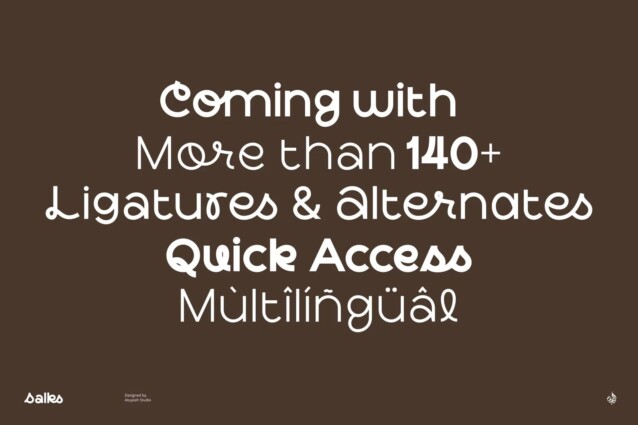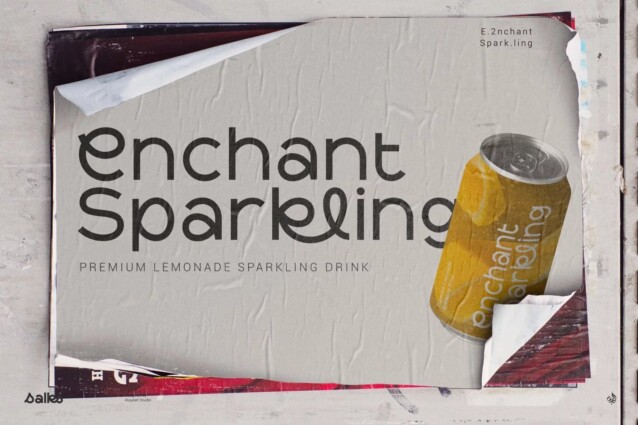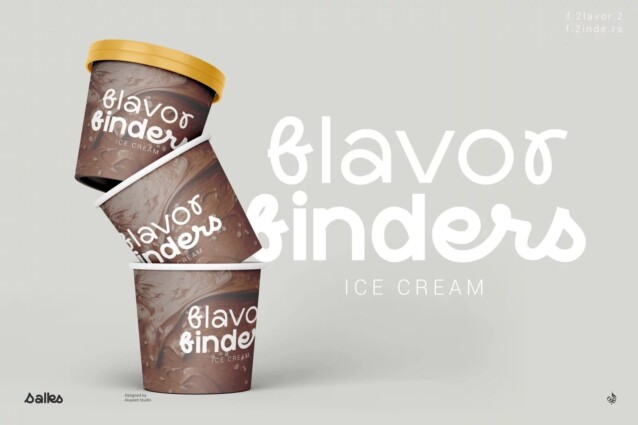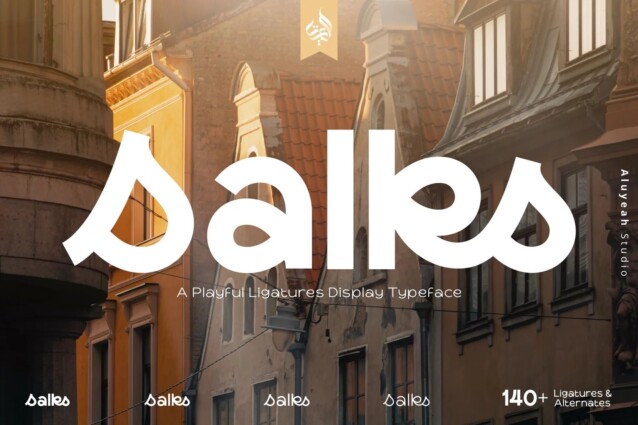
Salks Font
Salks Font is a stylish sans display font with a unique character designed by Aluyeah Studio. With Salks’ 140+ playful ligatures, four weight options, quick access features, and careful attention to detail, you’ll have the perfect tool to instantly uplift any project and unlock unlimited creative possibilities. Experience the happiness that Salks brings to your creative world with this delightful display typeface that guarantees smiles all around.